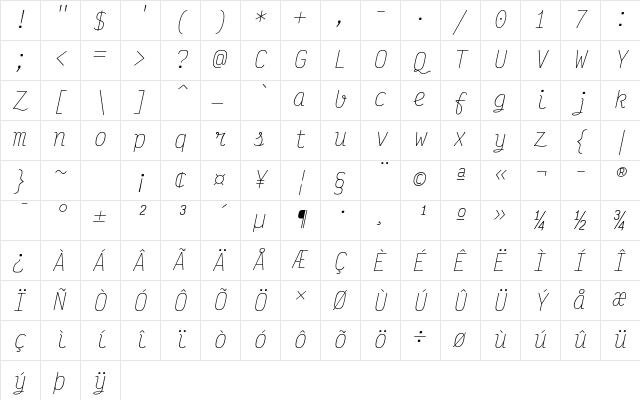
Complete VictorMono NF Italic glyph index. Displaying only characters natively supported by VictorMono NF Italic font.
VictorMono NF uses fixed-width spacing throughout, giving it the structured, systematic character associated with coding environments and technical documentation. The slanted form adds forward momentum and visual energy.